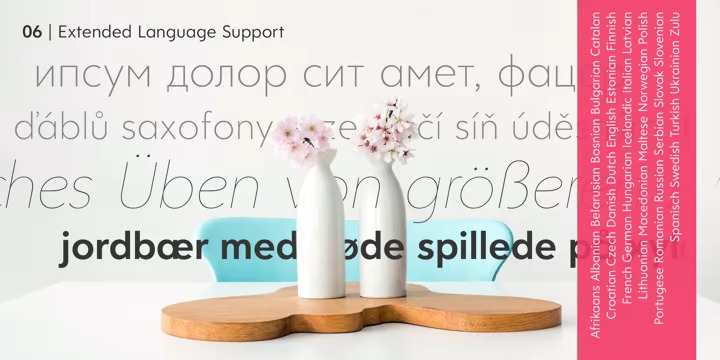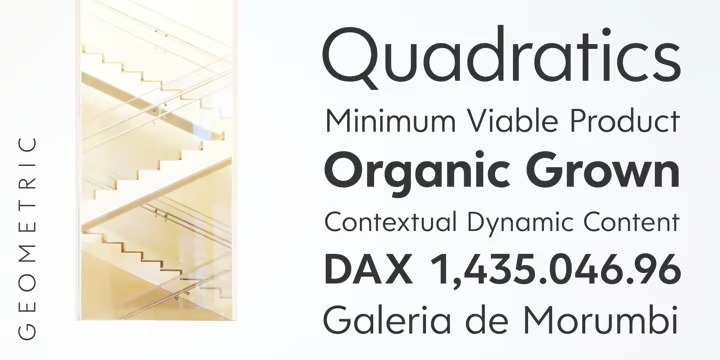
Clarika Pro Font Family
Clarika Pro Sans Serif Font
This is a timeless sans-serif typeface family of 40 fonts, made with perfection in every aspect of design. Clarika Pro is based on the successes of the 2017 cut of the original Clarika. Enhanced with features requested by customers and revamped based on its use across mediums, Clarika Pro is a thoughtful evolution and adaptation. The family has been extended with deeper language support. It has been redrawn, re-kerned, and re-spaced for an even more distinguished look. Unique features have been added to the families such as duplexed numerals and currencies, enabling ways to present large amounts of data without losing alignment when bolding line items. To extend usability, Clarika Office is now available as a companion to Clarika Pro, mapping popular combinations of weights together for use within office applications such as Word or PowerPoint.
Within all Clarika families co-exists two sub-families, Clarika Geometric and Clarika Grotesque. Clarika Geometric is the backbone of the system defined by calculated precision, the balance of hard and soft geometry, and simplicity of form while Clarika Grotesque is refined by traditional cues, elegant page texture, and classic grotesque detailing. Unique notches and angled terminals throughout both sub-families invite negative space into counters allowing letterforms to become more legible and gracefully support an incredible range of weight options. Clarika is both a nod to the past and a step towards the future.